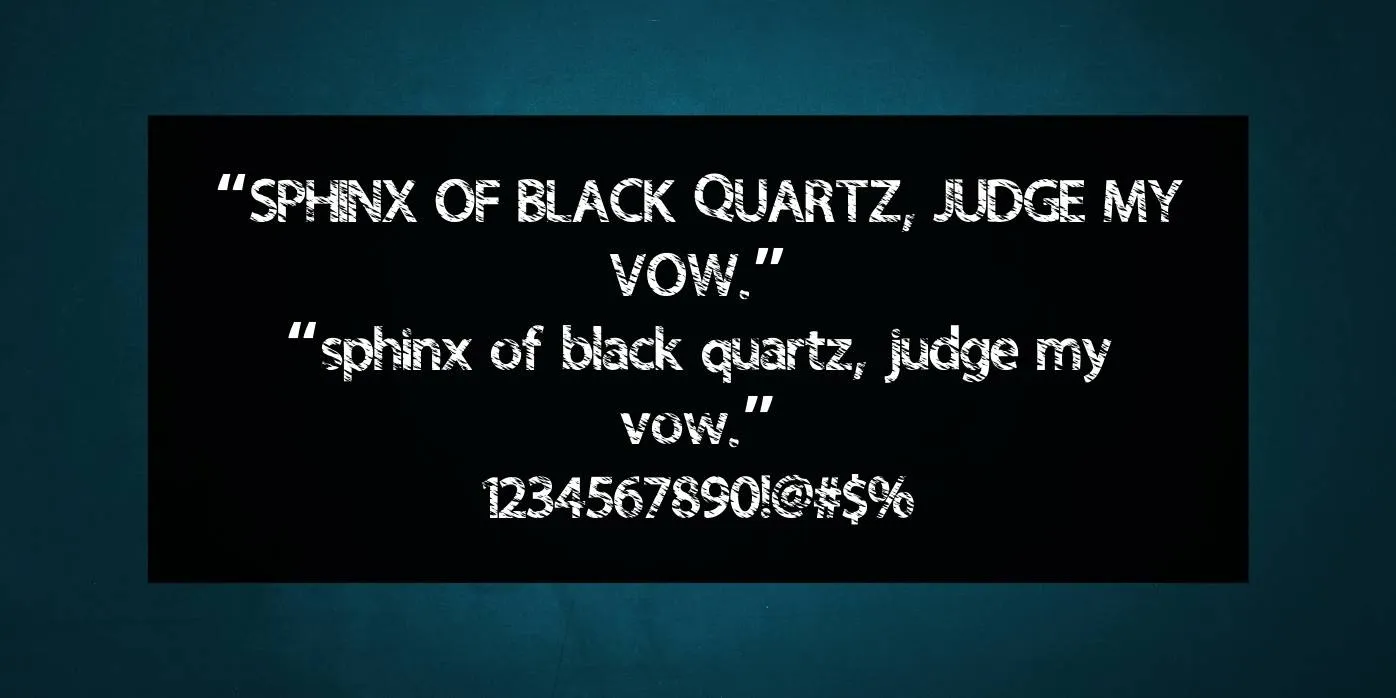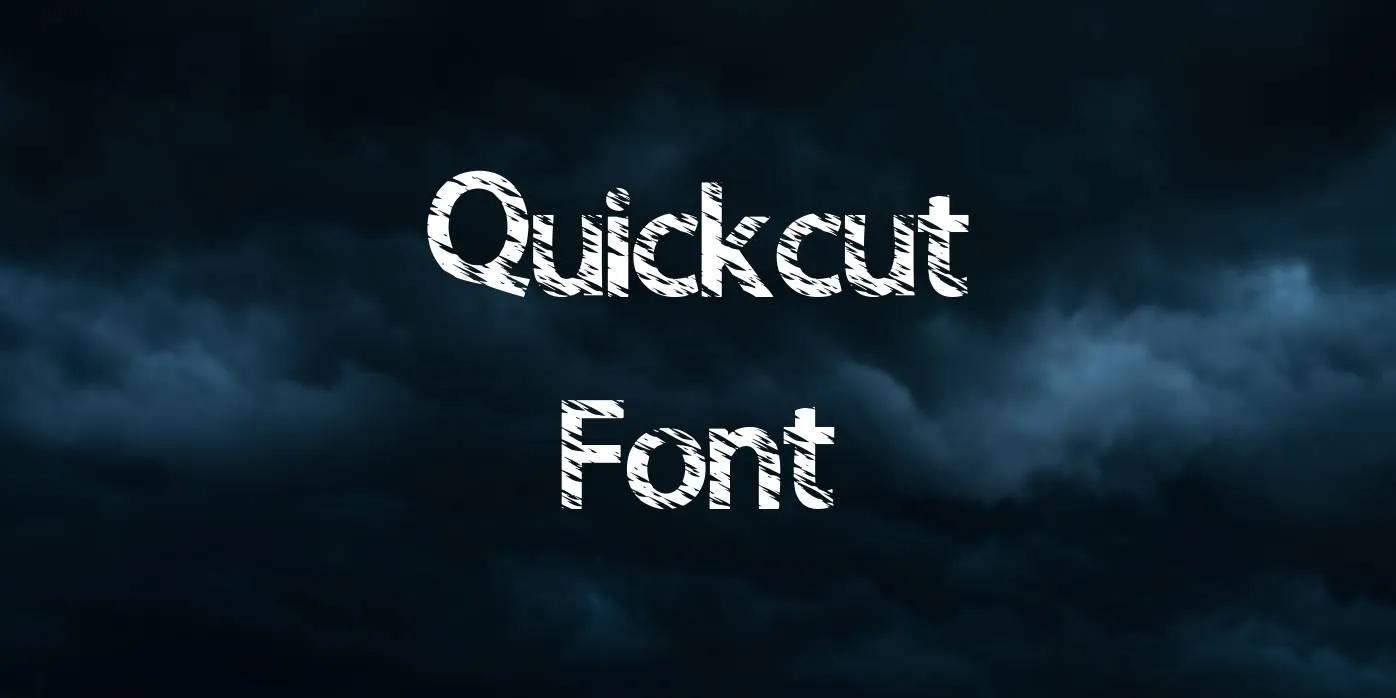
Quickcut Font
Today we introduced another amazing typeface named Quickcut font. The typeface style was designed by Xerographer Fonts. The typeface is a fancy style and it can be used on any of your operating devices such as MAC, PC, and Linux. The bold character of this font make it smoother and more stylish.
This is a very popular font but it is not available on Google Library. Moreover if you want to download this font then you can easily get it from our website. That font has eroded texture with a shaded inner side making it appear more attractive.